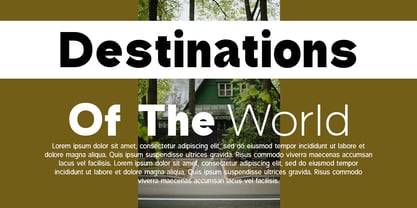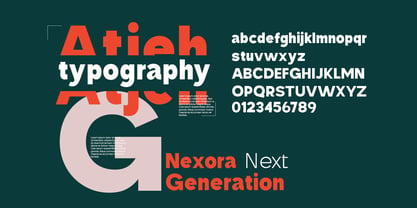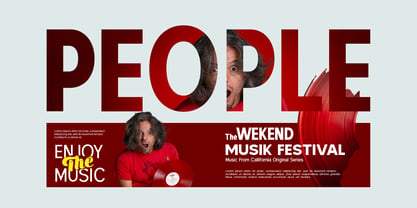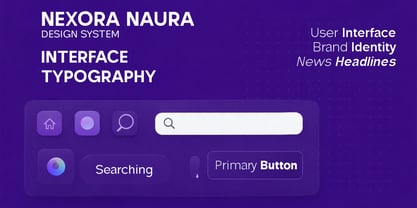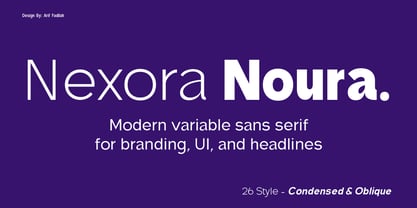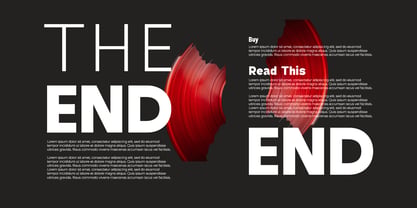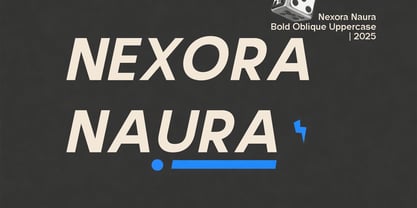
Nexora Naura
by Luhop Creative
The Nexora Naura Font Family was designed by Arif Fadilah and published by Luhop Creative. Nexora Naura contains 26 styles and family package options. More about this family
Nexora Naura is a modern sans serif typeface designed for clarity, flexibility, and contemporary brand systems. With a tall x-height and carefully balanced proportions, Nexora Sans performs exceptionally well across digital interfaces, editorial layouts, and large-scale branding applications. The family features an extensive range of 26 styles, including Condensed and Ultra Condensed widths, as well as Oblique styles, allowing designers to work efficiently in space-conscious layouts without sacrificing readability. Built as a variable font, Nexora Naura offers precise control over weight and width, making it ideal for modern design workflows, responsive typography, and long-term brand identities. Nexora Sans is well suited for branding, UI/UX design, editorial projects, headlines, advertising, and corporate communication, delivering a clean, confident, and professional typographic voice.
Designers: Arif Fadilah
Foundry: Luhop Creative